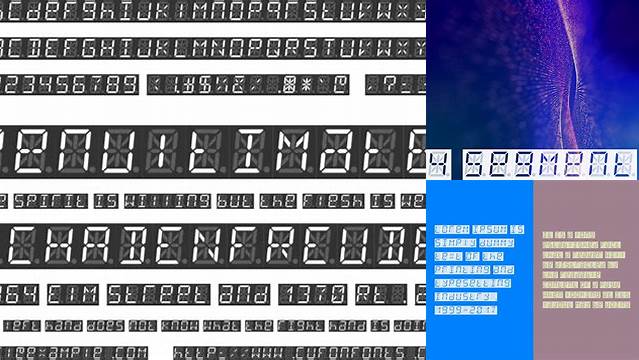
Hey guys! Are you on the hunt for some awesome 14 segment fonts? You've landed in the right spot! 14 segment fonts are super versatile and perfect for a bunch of projects, from digital displays to eye-catching designs. Let's dive into the world of these fonts and where you can snag them for free. We're going to cover everything from what makes them special to how you can use them in your projects. So, buckle up and let’s get started!
What is a 14 Segment Font?
Okay, first things first, what exactly is a 14 segment font? Unlike the more common 7 segment displays you see on digital clocks, these fonts have – you guessed it – 14 segments. This means they can create a wider range of characters, including letters and symbols, with much better clarity. Think of it as upgrading from a basic calculator to a high-definition screen. The extra segments allow for smoother, more recognizable characters, making them ideal for applications where readability is key. Whether it's on an industrial control panel or a flashy user interface, 14 segment fonts bring a level of sophistication that 7 segment fonts just can't match.
Why Use a 14 Segment Font?
So, why should you even bother with a 14 segment font? Well, the advantages are pretty sweet. For starters, they offer superior readability. Those extra segments make a huge difference in how clear and distinct each character appears. This is crucial when you're dealing with critical information that needs to be understood at a glance. Plus, they look way more polished and professional. If you're aiming for a sleek, modern design, a 14 segment font can instantly elevate your project. From dashboards and digital signage to user interfaces and industrial displays, these fonts add a touch of class and functionality. They are also incredibly versatile, working well in both digital and print formats, making them a fantastic choice for a wide range of applications.
Where to Find Free 14 Segment Fonts
Using 14 Segment Fonts in Digital Displays
One of the coolest uses for 14 segment fonts is in digital displays. Think about it – these fonts are designed for clarity and readability, which is exactly what you need when displaying information on screens. Whether it's an industrial control panel, a digital clock, or a fancy user interface, 14 segment fonts can make a huge difference. They ensure that your text is crisp and easy to read, even from a distance. Plus, they bring a modern, techy vibe to your project. When choosing a font for digital displays, consider the viewing distance and the amount of information you need to show. A well-chosen 14 segment font can significantly enhance the user experience, making your display both functional and visually appealing.
14 Segment Fonts in Graphic Design
But hey, 14 segment fonts aren't just for digital displays! They can also add a unique touch to your graphic design projects. Imagine using one of these fonts for a poster, a logo, or even a website header. The distinctive, almost futuristic look can really make your design stand out. They're especially great for projects that need a technical or modern feel. Think sci-fi themes, tech startups, or anything that wants to convey precision and clarity. Experiment with different sizes and weights to see what works best for your design. And don’t be afraid to mix and match with other font styles to create a balanced and eye-catching composition. Using a 14 segment font creatively can give your project that extra edge.
Best 14 Segment Font Styles for Different Projects
Okay, so you know you want a 14 segment font, but which style should you choose? There's a surprising amount of variety out there, guys! For digital displays and industrial applications, you'll probably want something clean and highly readable, like a classic sans-serif 14 segment font. These fonts are designed for clarity above all else. If you're working on a graphic design project, you might have a bit more leeway to get creative. Consider fonts with a more stylized or rounded look for a softer feel, or go bold and angular for a techy vibe. The key is to match the font style to the overall tone and purpose of your project. A little experimentation can go a long way in finding the perfect fit.
Creating Your Own 14 Segment Font
Feeling ambitious? How about creating your very own 14 segment font? It might sound intimidating, but with the right tools and a bit of patience, it's totally doable. You'll need font editing software like FontForge (which is free and open-source) or Glyphs (a more professional option). Start by sketching out the basic shapes of your characters, keeping in mind the 14 segment structure. Then, use the software to create the vector outlines and fine-tune the details. This is where you can really let your creativity shine and develop a font that’s uniquely yours. Creating a font is a fantastic way to learn about typography and add a personal touch to your projects. Plus, you'll have a one-of-a-kind font that no one else has!
Tips for Choosing the Right 14 Segment Font
Choosing the right 14 segment font can feel like a quest, but don't sweat it! Here are some top tips to help you make the best choice. First, consider readability. If your font is hard to read, it defeats the whole purpose. Look for fonts with clear, well-defined segments. Next, think about the context. Is this for a digital display, a poster, or something else? The application will influence the style you choose. Also, pay attention to the font license. Make sure you're allowed to use the font for your intended purpose, especially if it’s for commercial work. Finally, don't be afraid to experiment. Download a few different fonts and try them out in your project to see what looks best. A little bit of effort can make a huge difference in the final result.
Where to Get Inspiration for 14 Segment Font Designs
Stuck in a font rut? Need some fresh inspiration for your 14 segment font designs? Don't worry, inspiration is all around you! Start by exploring online design galleries and showcases, such as Behance, Dribbble, and Awwwards. These platforms are packed with creative projects that use fonts in innovative ways. Look at websites, posters, logos, and other designs that incorporate 14 segment fonts, and analyze what makes them effective. Pay attention to font pairings, color palettes, and overall design concepts. Typography blogs and magazines are another great resource, offering insights into current trends and design techniques. Don't forget to look beyond the digital world – examine vintage packaging, signage, and other examples of typography in the real world. And of course, experiment with your own designs and push your creative boundaries. Inspiration can strike at any moment, so keep your eyes open and your mind receptive!